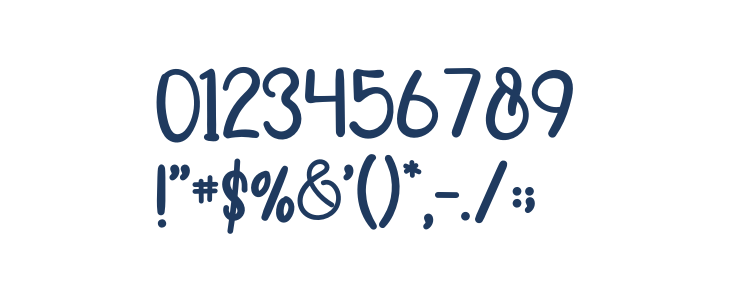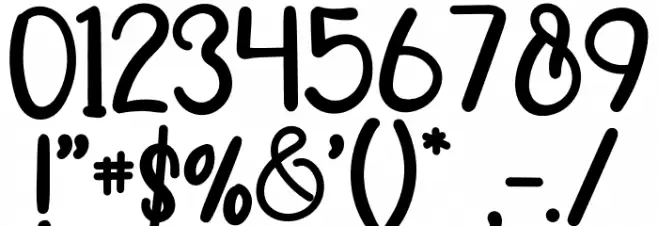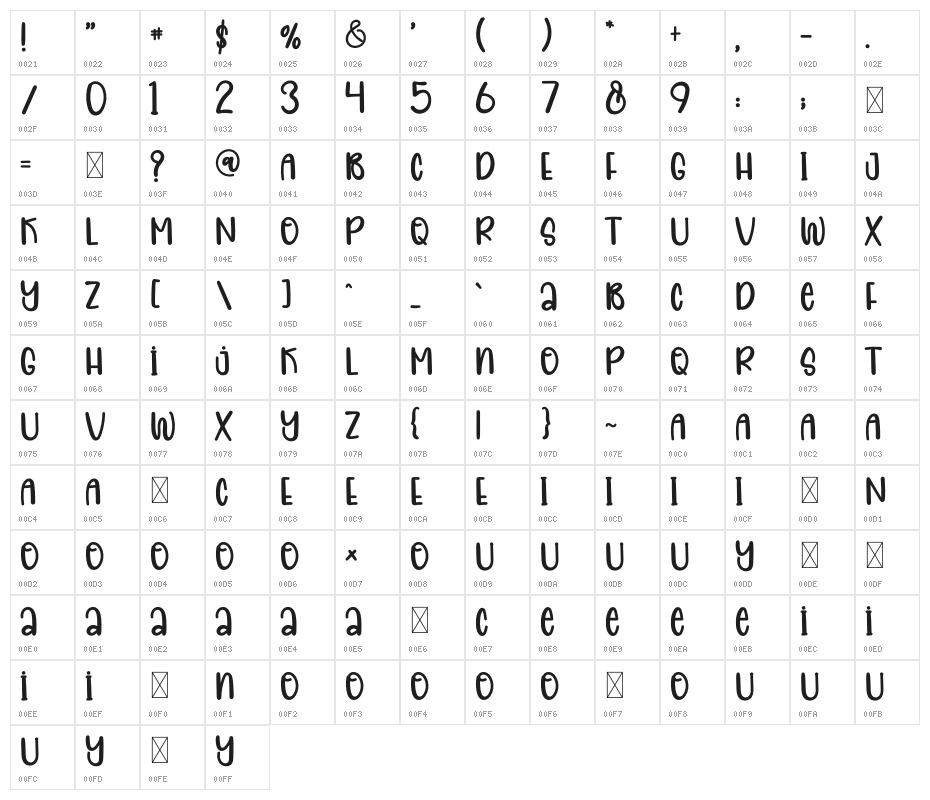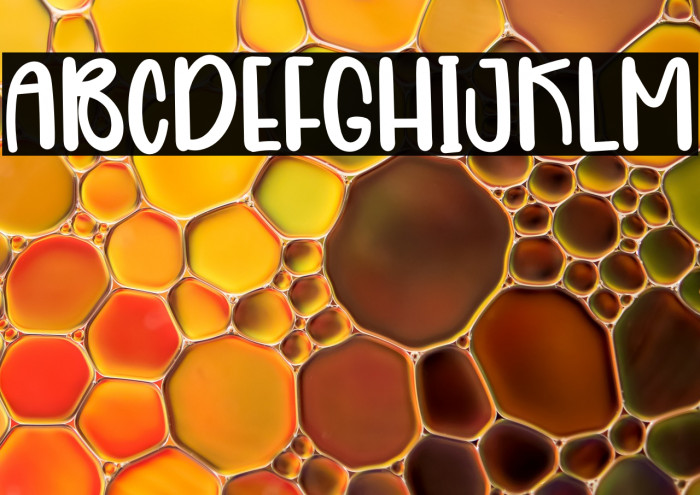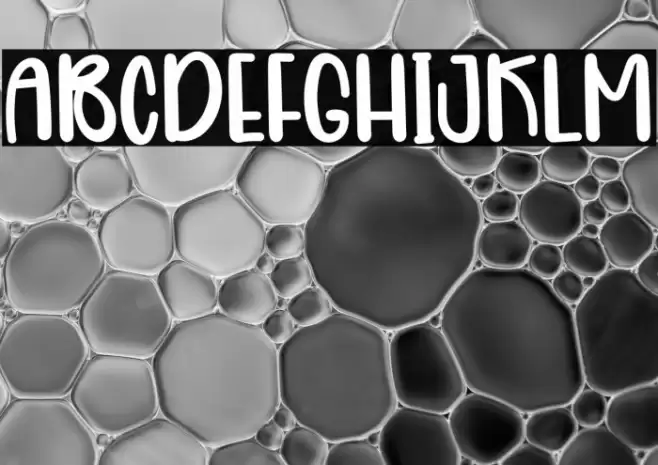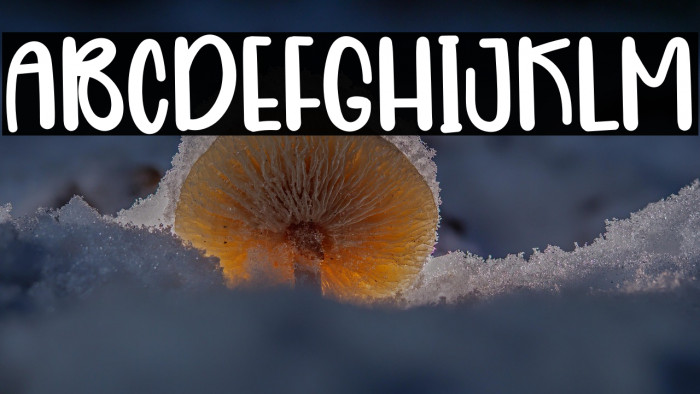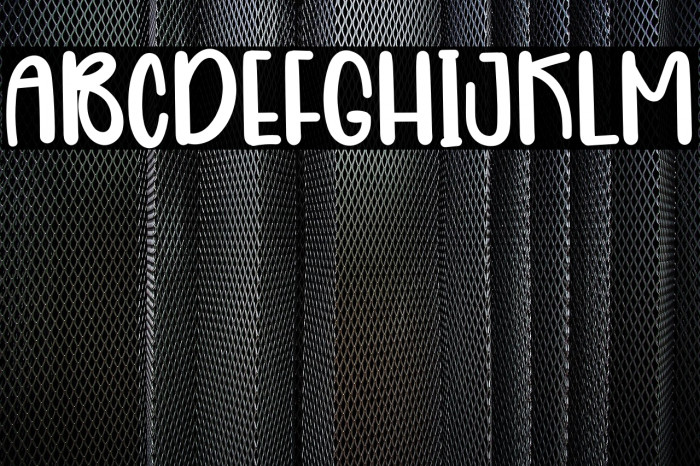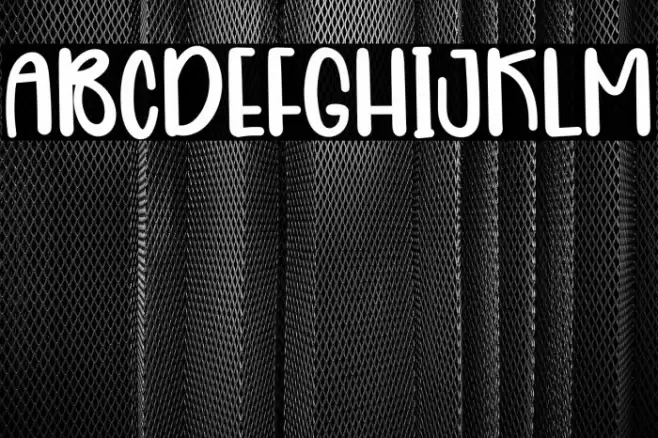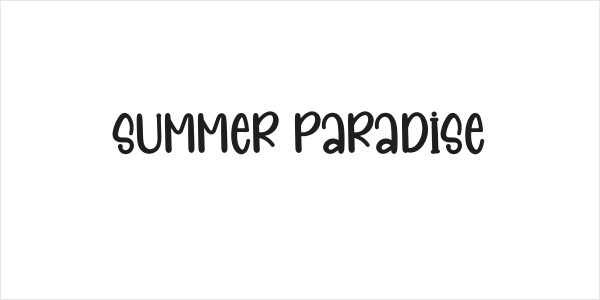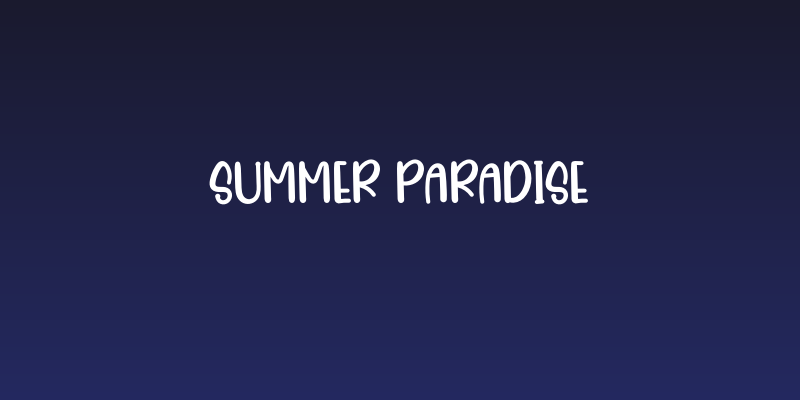
Summer Paradise Font
Summer Paradise Description
This playful and bold font exudes a carefree and lively spirit, perfect for capturing attention. Its rounded and smooth letterforms give it a friendly and approachable feel, while the consistent stroke width maintains readability. The font's whimsical style is reminiscent of handwritten lettering, adding a personal touch to any design. Its bold presence makes it ideal for headlines and titles, ensuring that the message stands out. The font includes a full set of uppercase and lowercase letters, numerals, and a variety of special characters, offering versatility for different design needs.
| Proposed Projects | Ideal for summer-themed posters, children's book covers, playful branding, and social media graphics. |